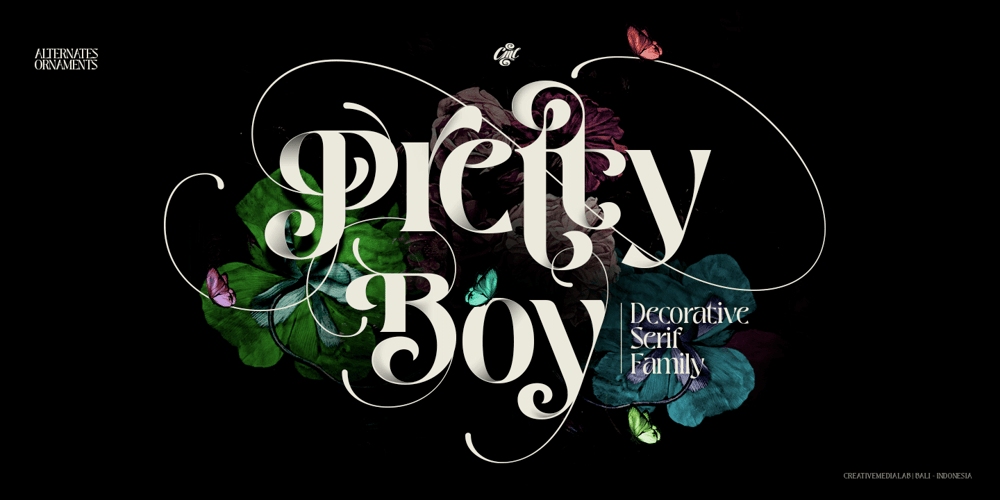
Pretty Boy Font Family was designed by Kadek Mahardika and published by Creativemedialab. Pretty Boy contains 6 styles and family package options. Introducing Pretty Boy a decorative serif family. This font consists of five weights and an ornament and has many alternative options to arrange to get a very beautiful and charming typography art. Pretty Boy Ornament works great to pair with any fonts too! This decorative serif family is perfect for all sorts of designs like movie, poster, wedding invitations, and also work great for logo, branding, headers or labels. how to access alternate? Adobe Photoshop go to Window – glyphs Adobe Illustrator go to Type – glyphs Others ( Canva, Cricut Design Space, etc ) , open font book (mac) / Character map (PC) – Set to view all Glyphs, copy the glyph that you want from Pretty Boy font and paste. Check out Losta Frida which is a great pair for Pretty Boy.